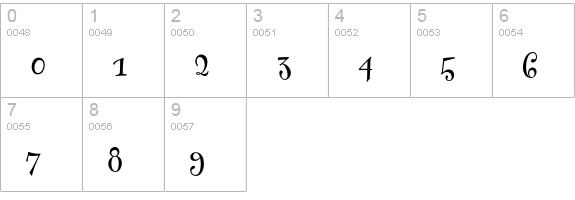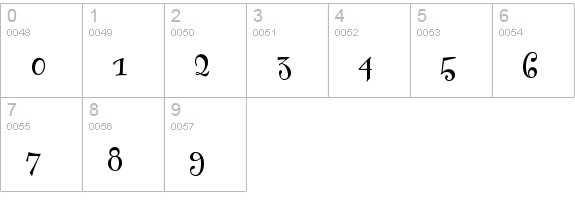
FontesqueText-Regular is the standard, neutral variant in the FontesqueText typeface family \xE2\x80\x94 well suited to general body text, paragraphs, and standard typographic work.
FontesqueText-Regular is a versatile and elegant typeface that exudes sophistication and charm. With its classic yet modern design, this font is perfect for a wide range of projects, from branding to editorial design. The clean lines and balanced proportions of FontesqueText-Regular make it highly readable and versatile, ensuring that your message is communicated effectively. Best of all, FontesqueText-Regular is available for free download at FontsMarket.com. This means that you can easily access and use this beautiful font in your projects without any cost. Whether you are a professional designer or someone looking to enhance your personal projects, FontesqueText-Regular is a fantastic choice that will elevate your work to the next level. Download it today and unleash your creativity with this stunning typeface.